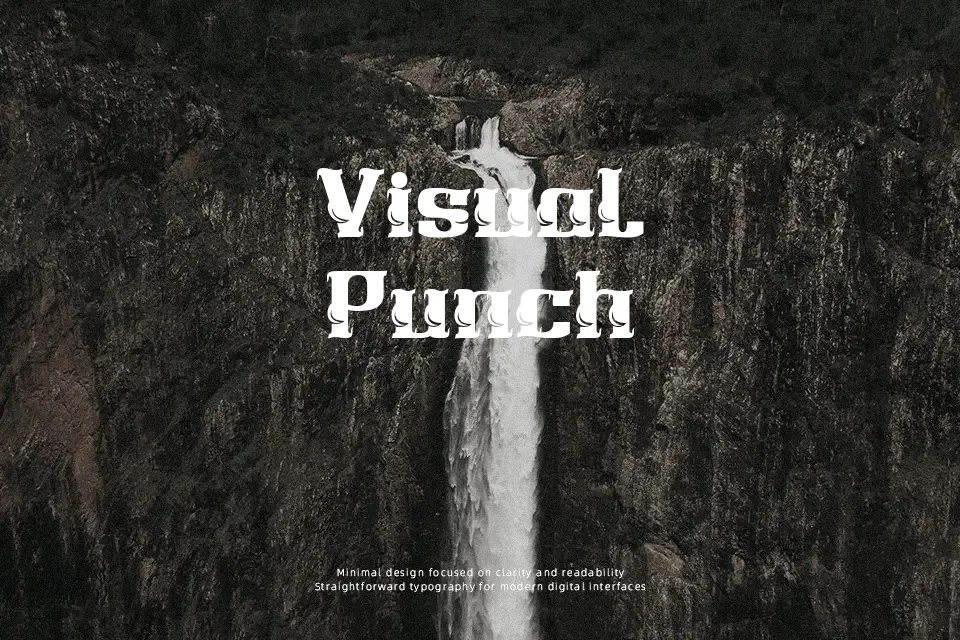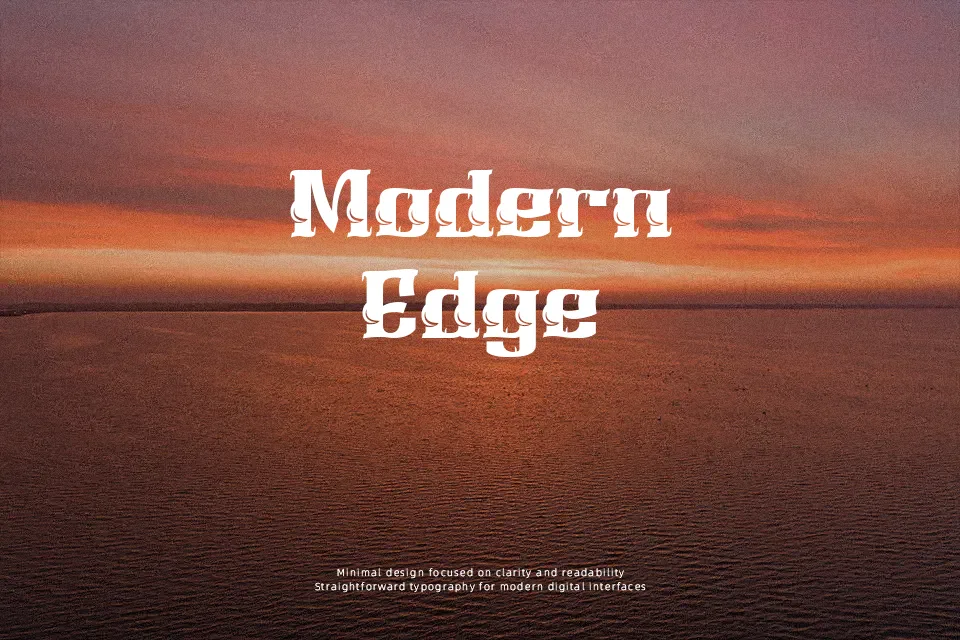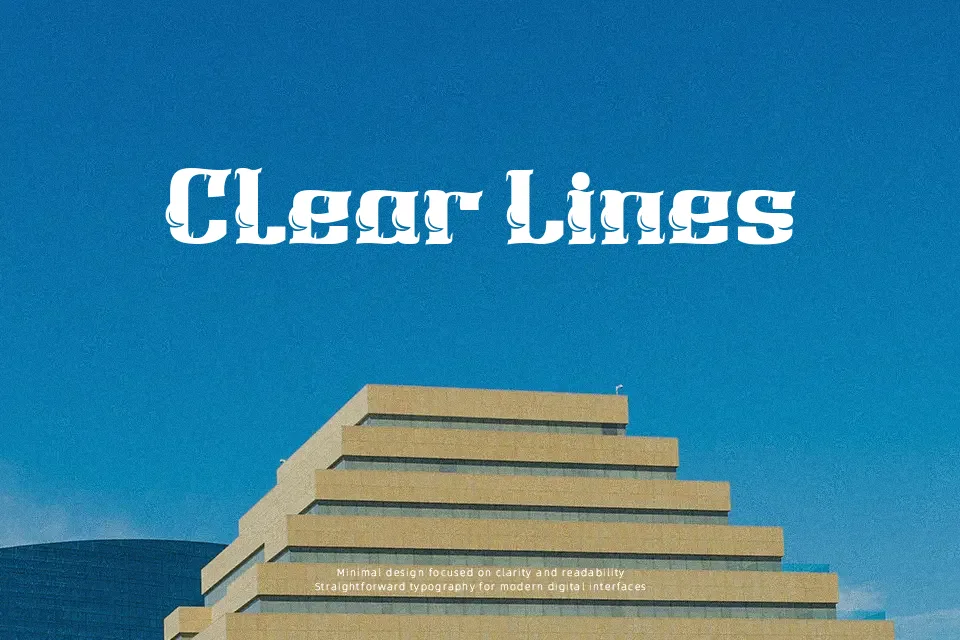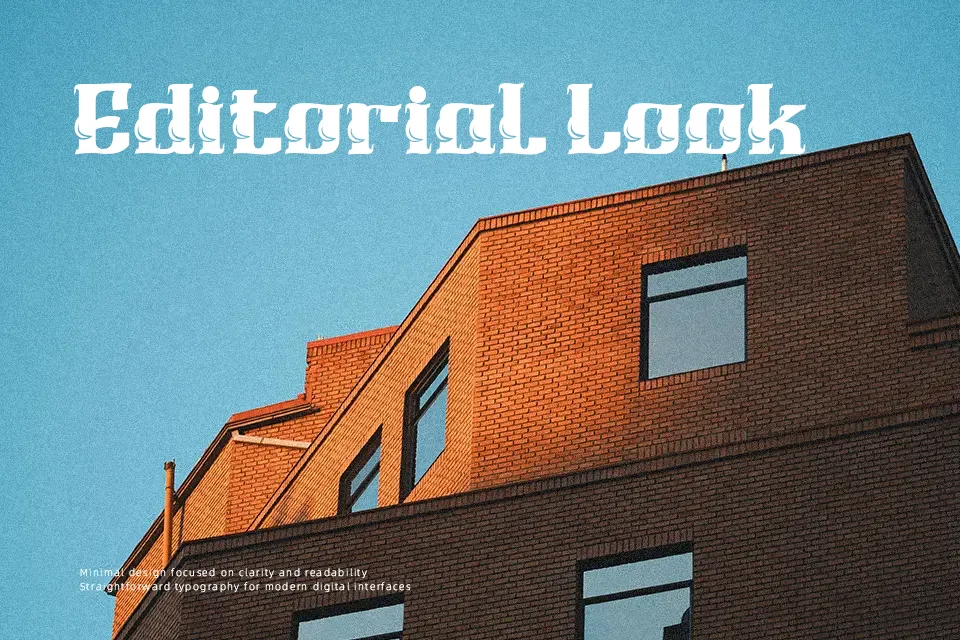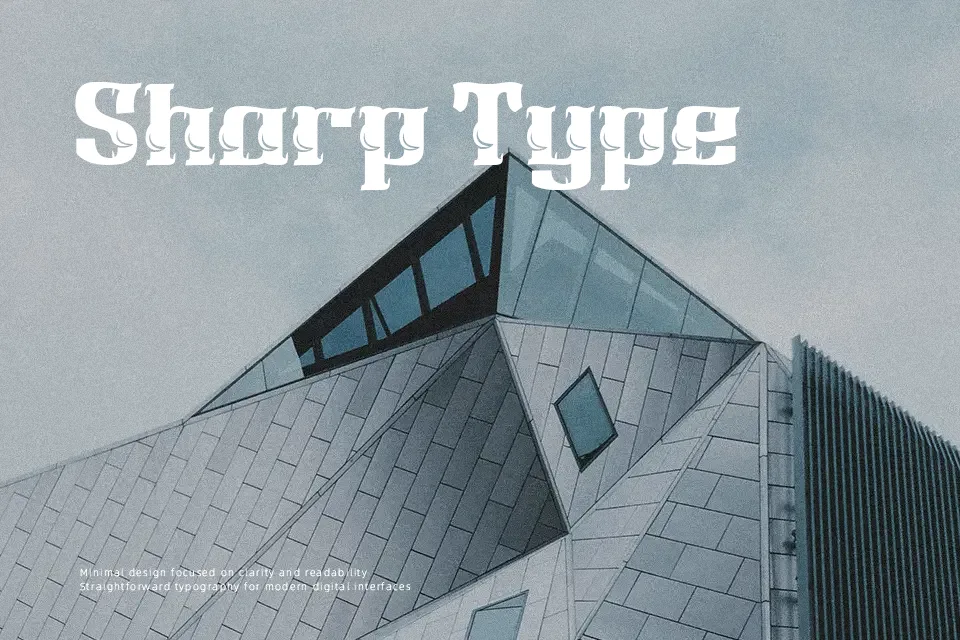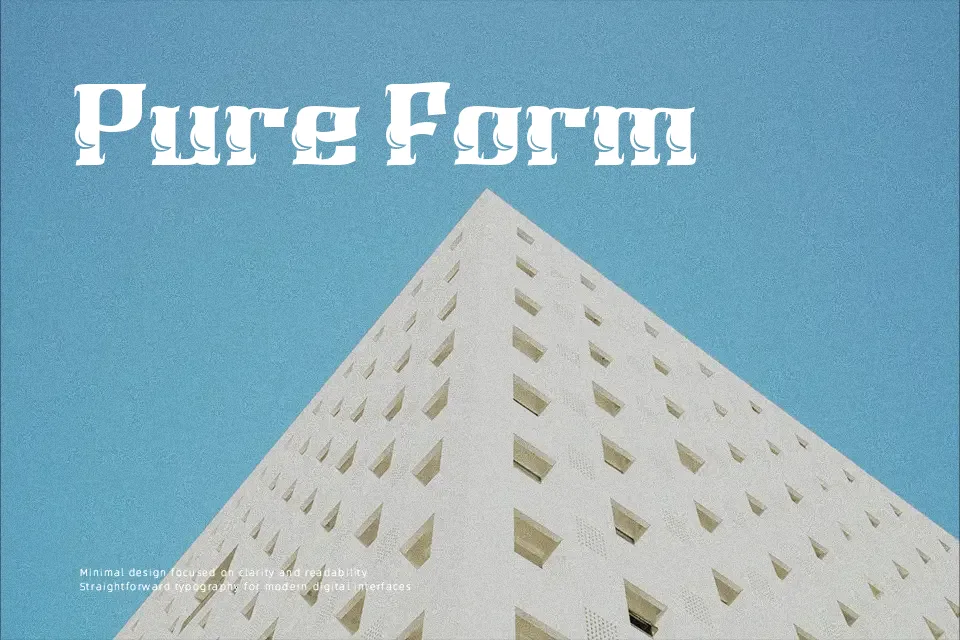
Obitruk Font
Obitruk Font introduces a bold display aesthetic characterized by wide geometric structures, thick uniform strokes, and distinctive angular cutouts. The typeface maintains solid visual balance across uppercase letterforms, utilizing compact horizontal spacing and low stroke contrast to establish an imposing presence. Readability remains sharp in large titles and broadcast graphics where the heavy silhouettes command attention. However, the dense weight and enclosed counters make continuous reading difficult in dense text blocks, causing small captions to lose clarity. The design proves most effective when deployed as a central typographic centerpiece for branding and event promotion.
Best For: cinematic movie titles, esports team branding, arcade game logos, streetwear apparel graphics
Not Ideal For: continuous book text, legal contracts, mobile application interface body, financial spreadsheets
Perfect for branding, gaming, and headline, with a bold and decorative style.